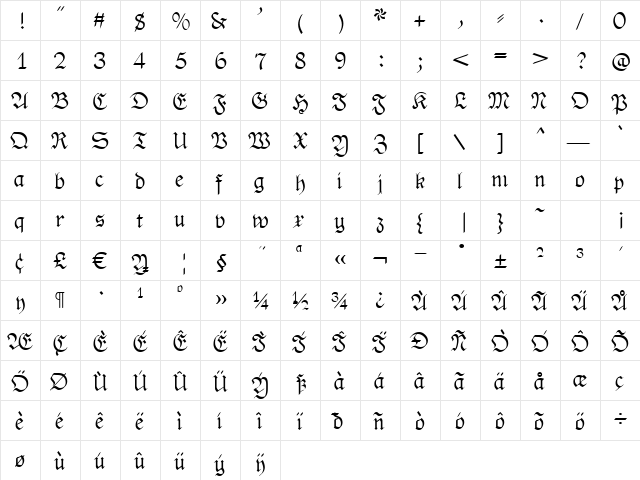
PhederFrack Regular
Design Context for PhederFrack Typeface
PhederFrack is a composed and adaptable typeface that performs quietly and consistently across a wide range of design contexts.